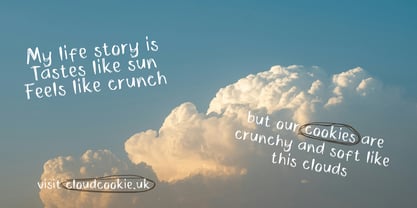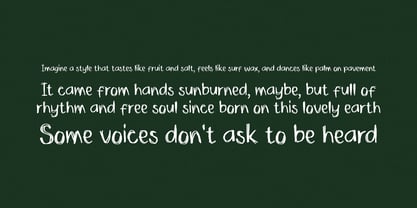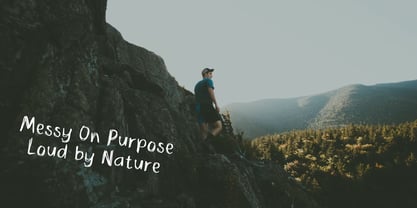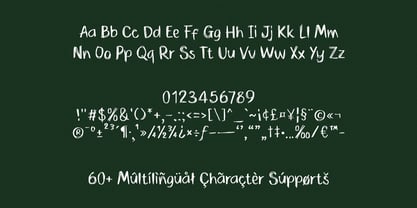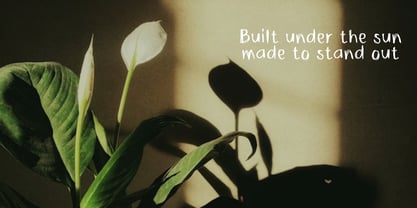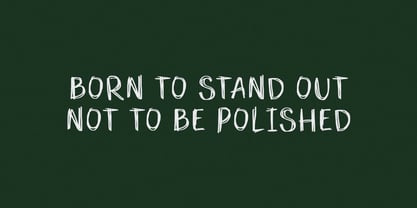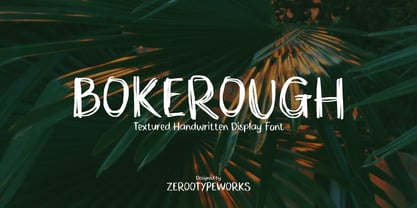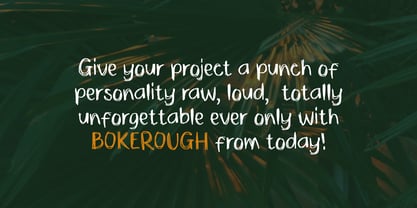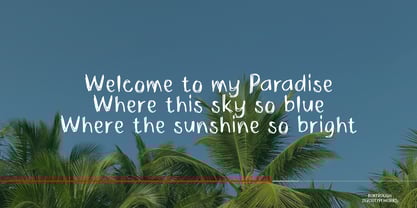
ZRTW Bokerough
by Zerootypeworks
The ZRTW Bokerough Font Family was designed by Gumilang Anggara Ruslan and published by Zerootypeworks. ZRTW Bokerough contains 1 styles. More about this family
BOKEROUGH is a bold and scratchy handwritten display font inspired by tropical heat and untamed creativity. With rough brush-style strokes and imperfect edges, it adds a raw, handmade feel to any project perfect for food packaging, kids’ snacks, beachwear, travel content, or Instagram quotes that need to stand out. Whether you're designing summer event posters or branding a snack product with flavor and flair, BOKEROUGH delivers wild character with just the right amount of chaos.
Designers: Gumilang Anggara Ruslan
Foundry: Zerootypeworks